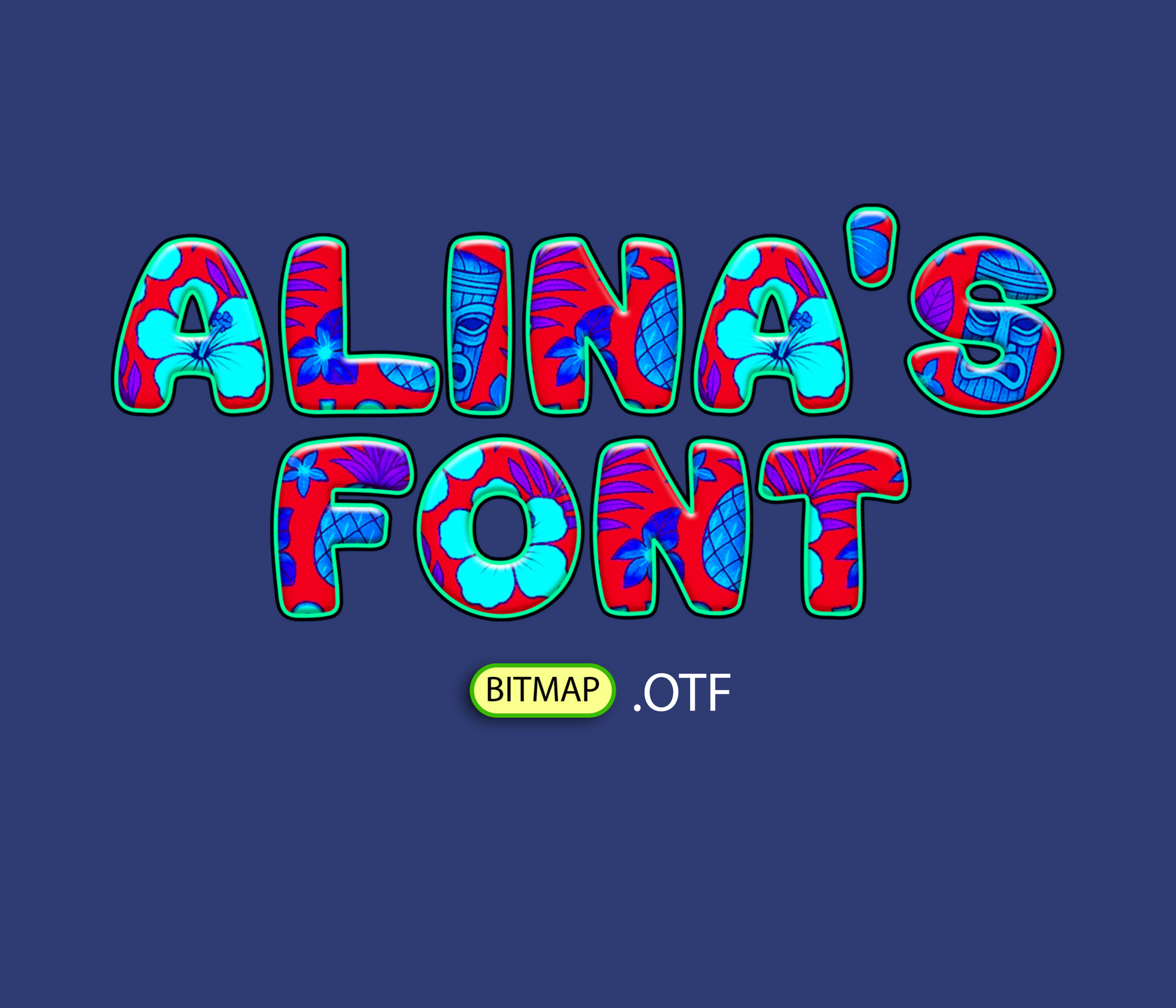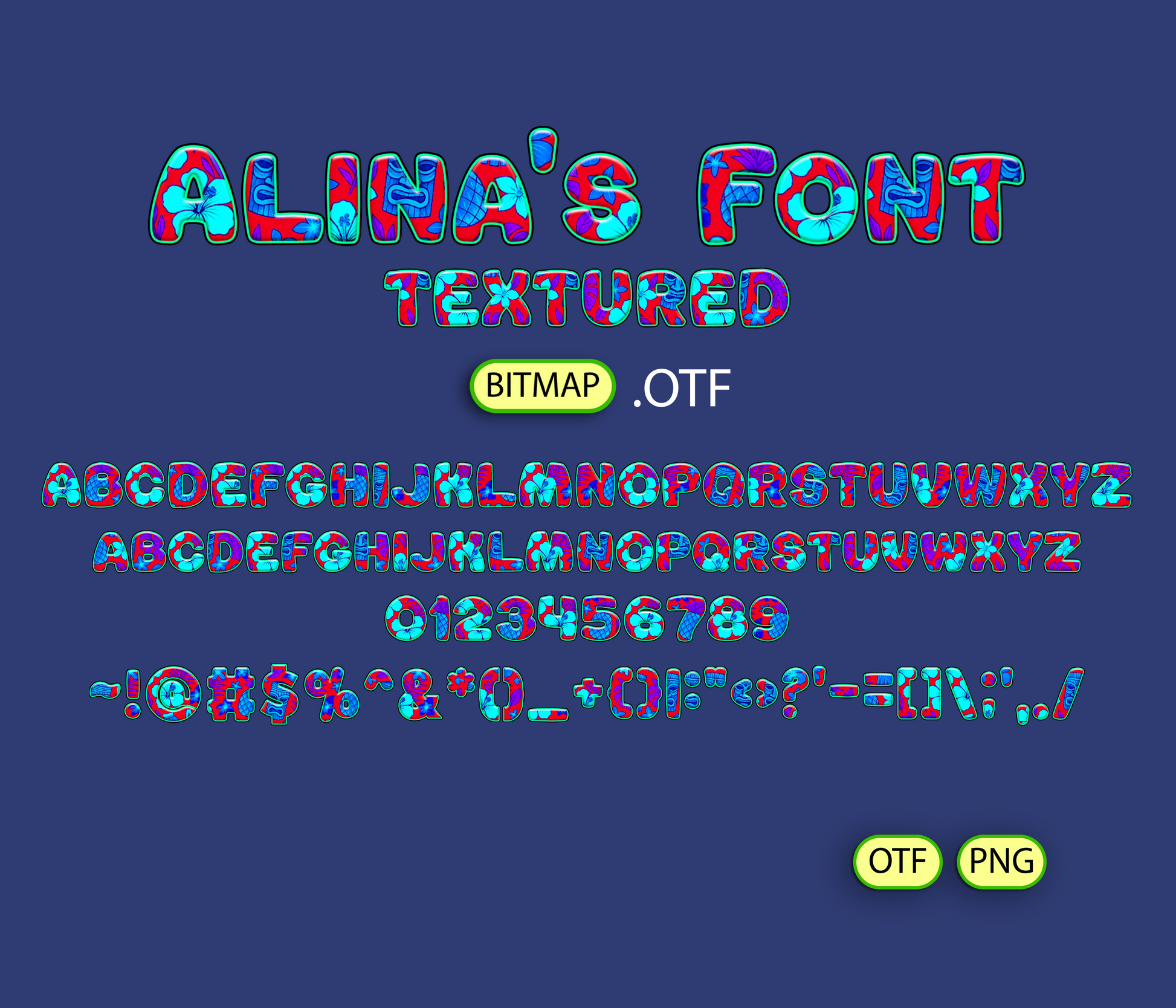
Tropical Hawaii Typeface Textured
Step into the paradise world of island living with our Tropical Hawaii Typeface, capturing the essence of swaying palm trees, ocean waves, and endless summer vibes. Perfect for resort businesses, tropical brands, tiki bar owners, and creative professionals, this font brings the relaxed, adventurous spirit of Pacific islands to your projects. Create delightful signage, vacation-themed products, or digital content with the golden, sun-soaked magic of pristine beaches and tropical sunsets.
Our Tropical Hawaii Typeface features flowing, wave-inspired curves and playful characters reflecting the whimsical yet serene aesthetic of island paradise. Ideal for:
- Tourism Business: Create appealing logos, packaging, and promotional materials for resorts, surf shops, and tropical restaurants
- Children's Design: Perfect for summer storybooks, luau party decorations, and learning materials that celebrate ocean adventures
- Digital Media: Enhance websites, blogs, and social media with tropical headers and graphics that express island joy and relaxation
- Educational Content: Add authentic character to travel materials, cultural guides, and promotional materials for beach events
- Personal Projects: Bring island charm to greeting cards, craft projects, and home decor inspired by the aesthetics of hibiscus flowers and ocean horizons
Our Tropical Hawaii Typeface includes textured and non-textured variants, ensuring compatibility with all software, including Canva. This feature allows easy incorporation into designs for users of all skill levels.